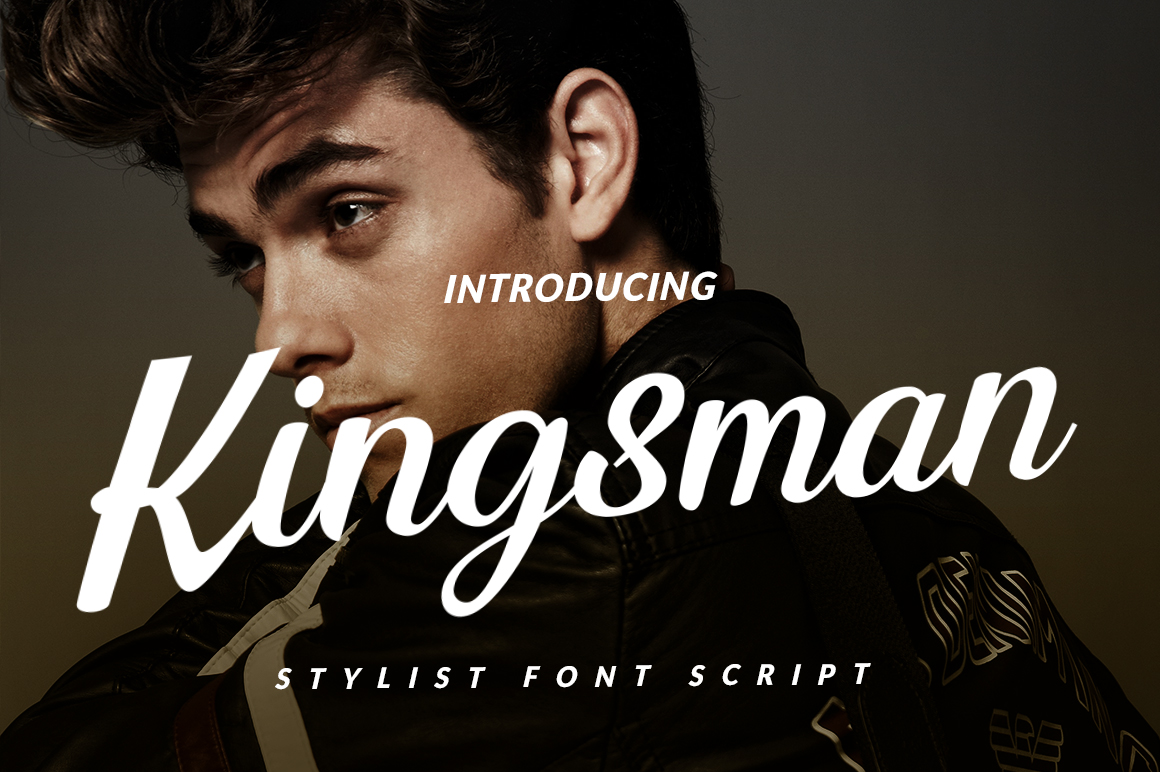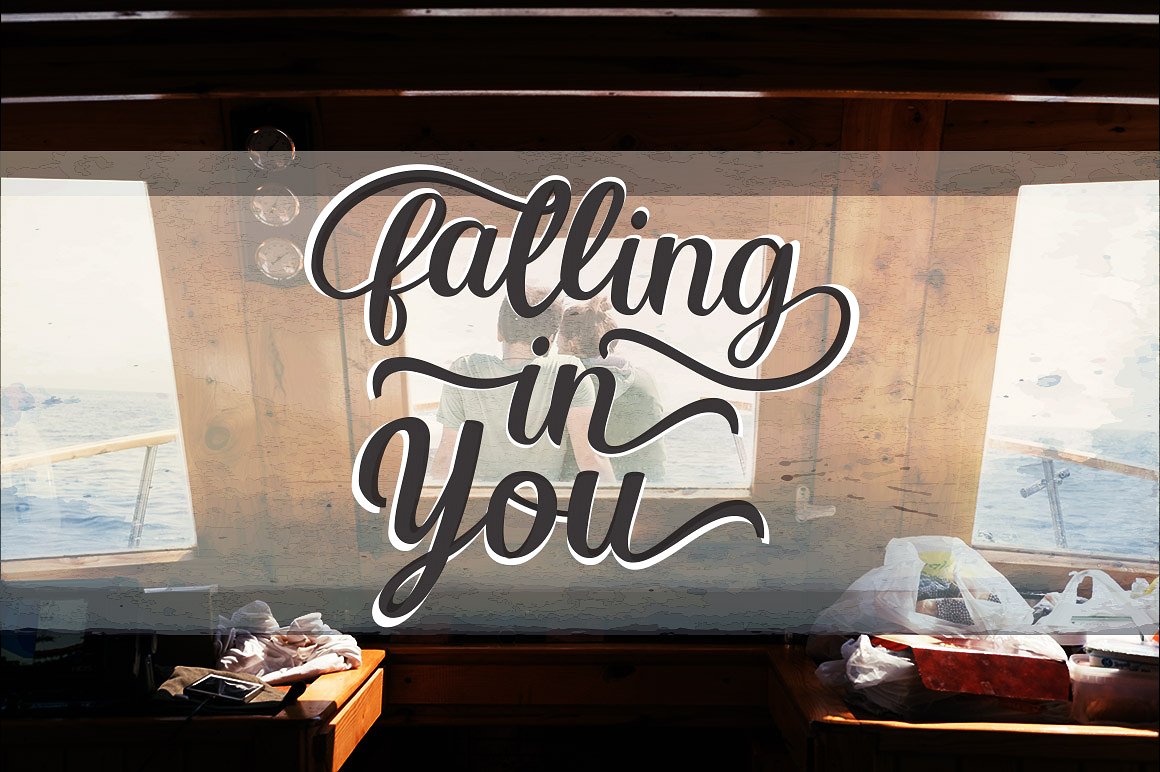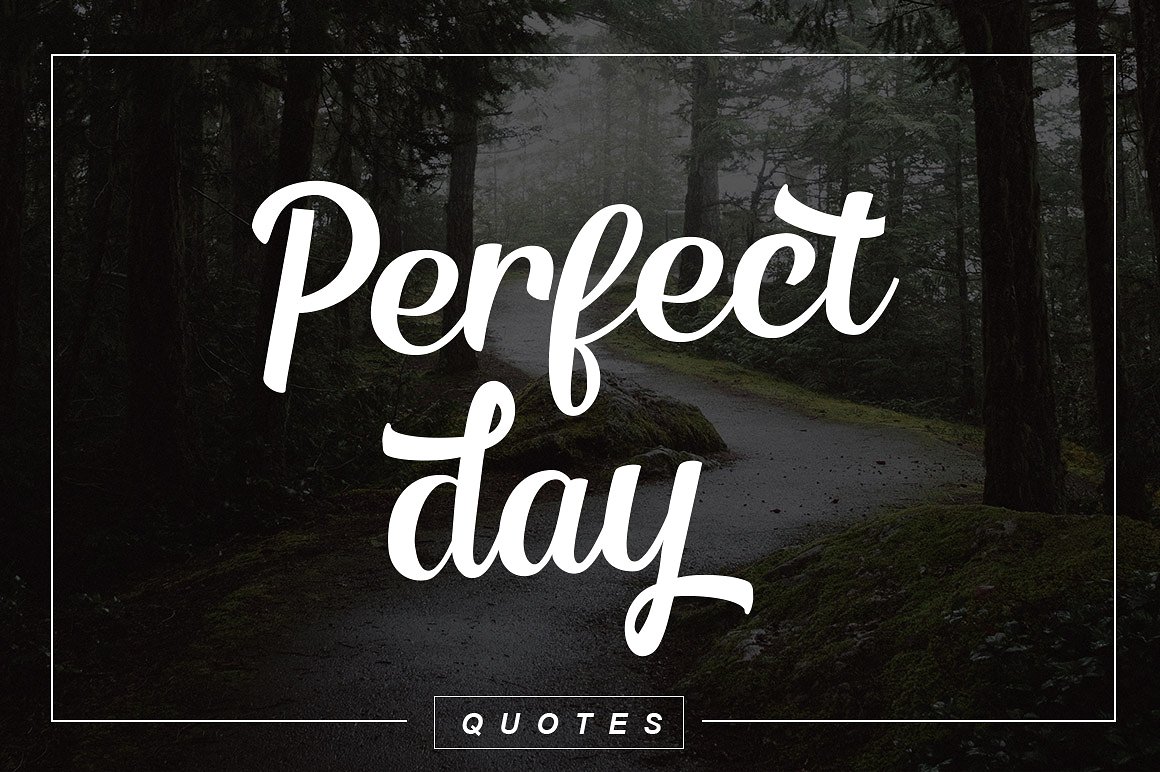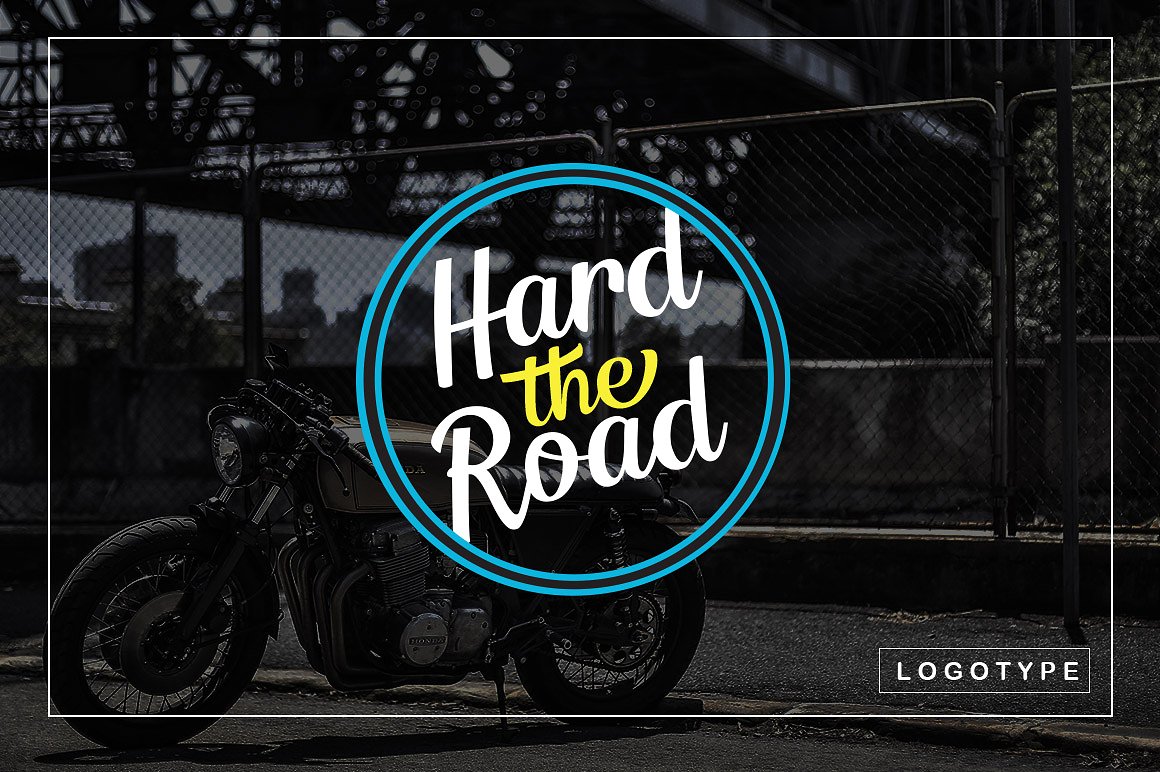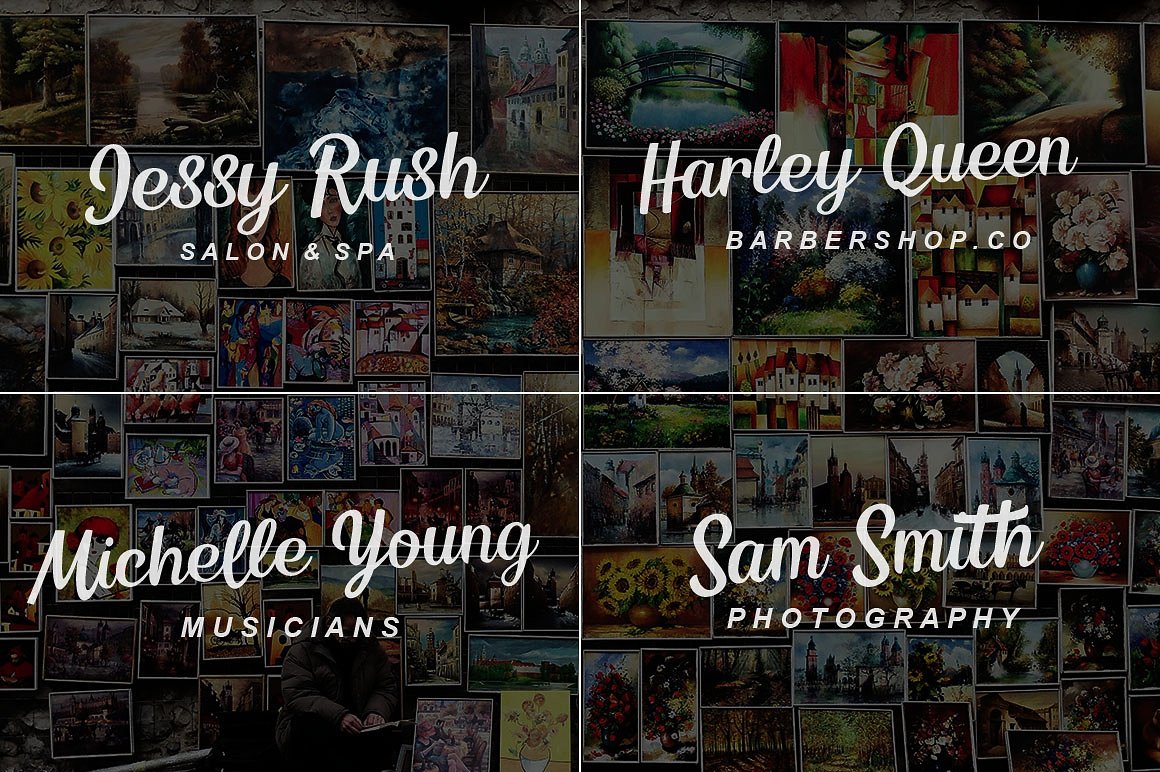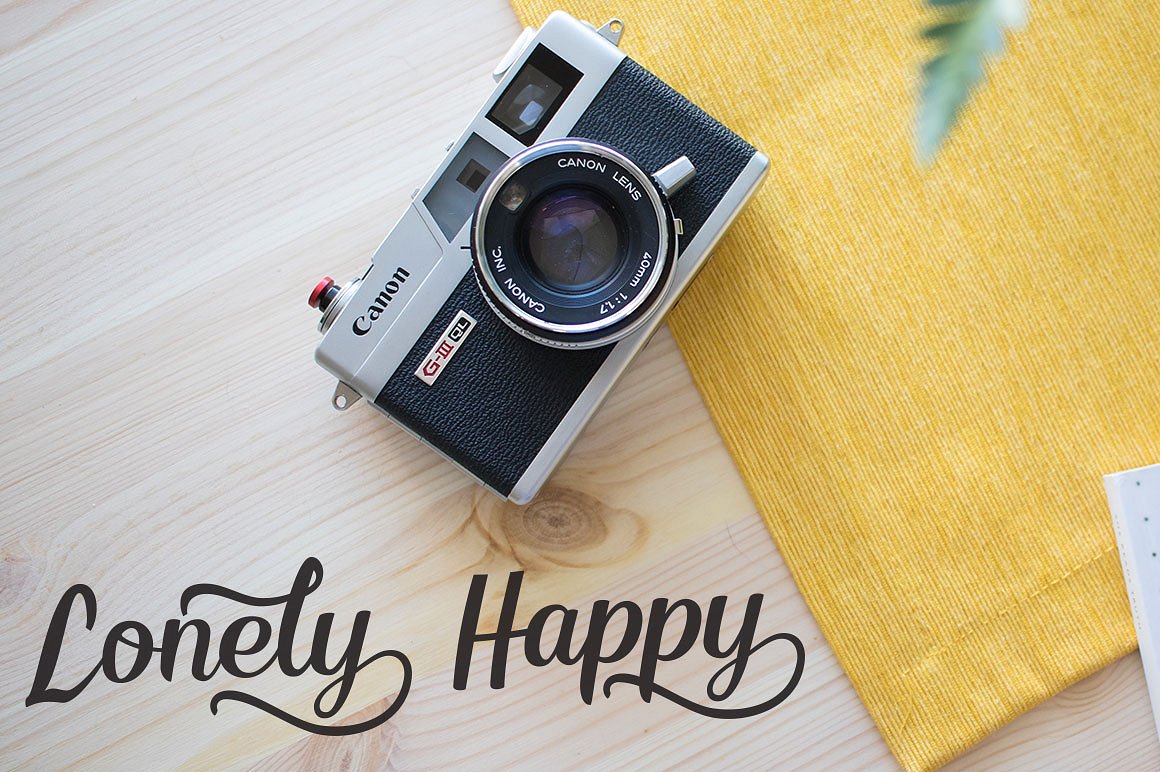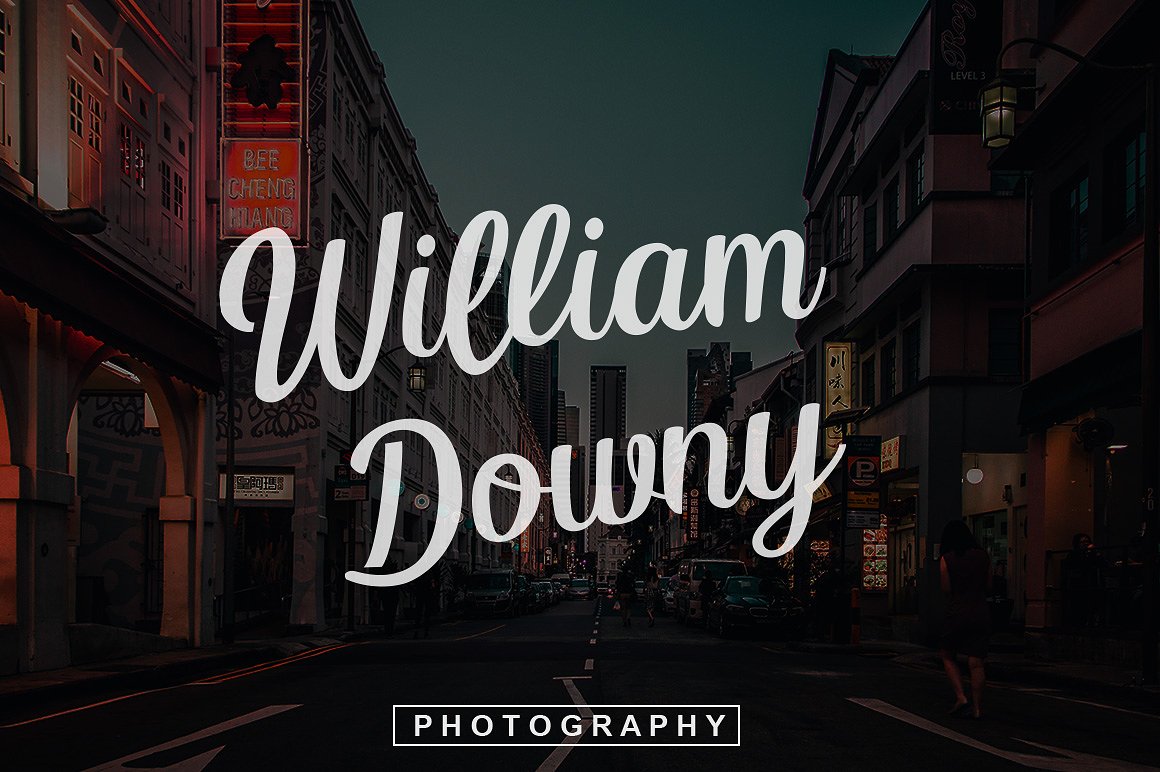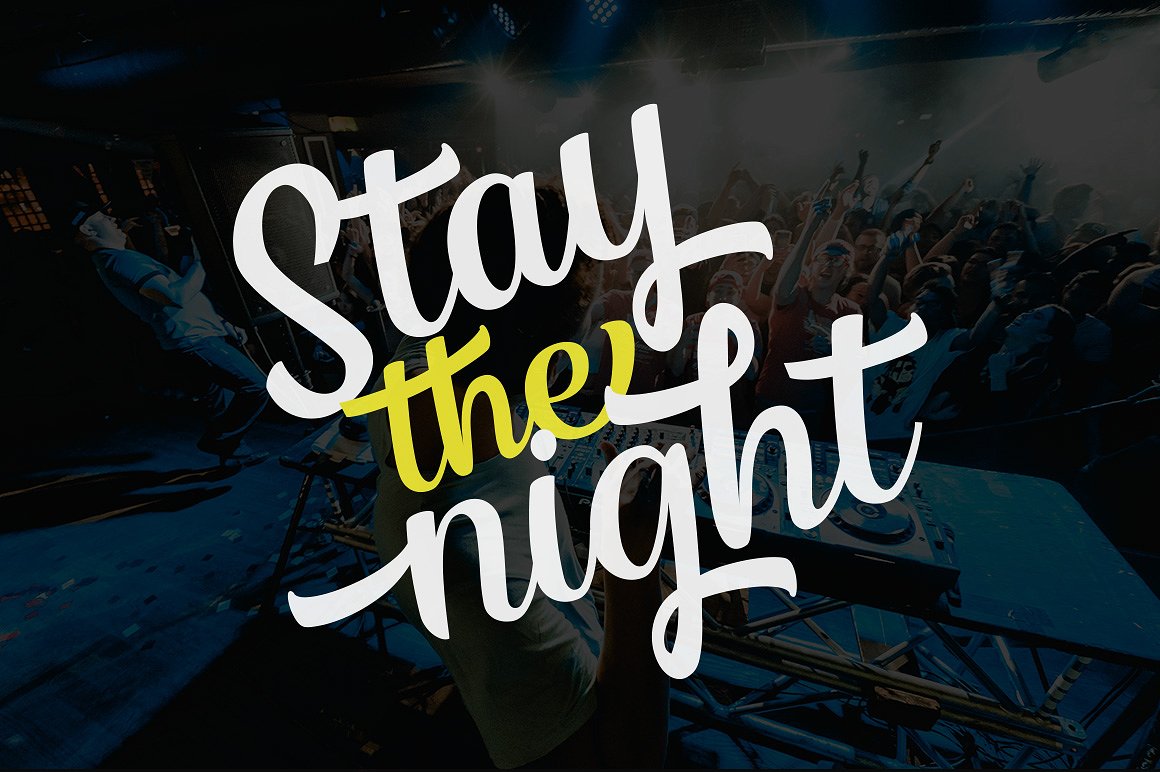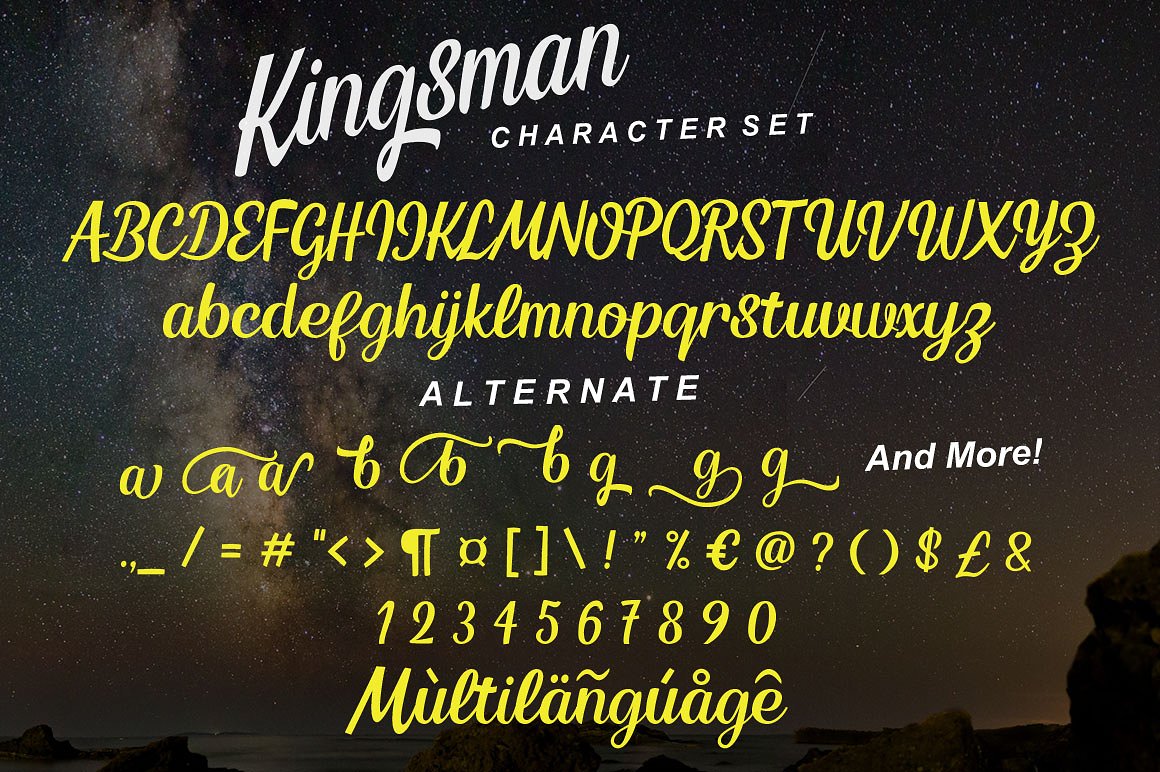
Kingsman Font
About Kingsman Font
Kingsman is a gorgeous, unfussy script.  This font is elegant, readable, stylish and eye-catching, making it adaptable to wide range of design styles and creative projects.